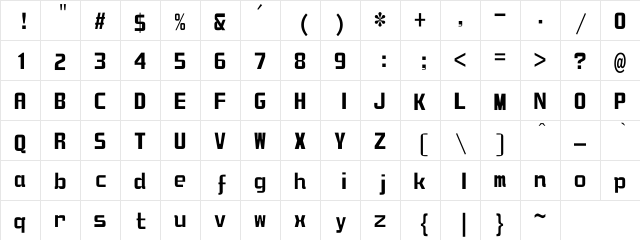
DFZongYiW5U-B5 Regular
Design Context for DFZongYiW5U-B5 Typeface
DFZongYiW5U-B5 offers clean, dependable letterforms without strong stylistic allegiance, making it a practical choice for designers who need flexibility.
Pro Tip: Use DFZongYiW5U-B5 in both headline and body roles to test its range before committing to a single application.